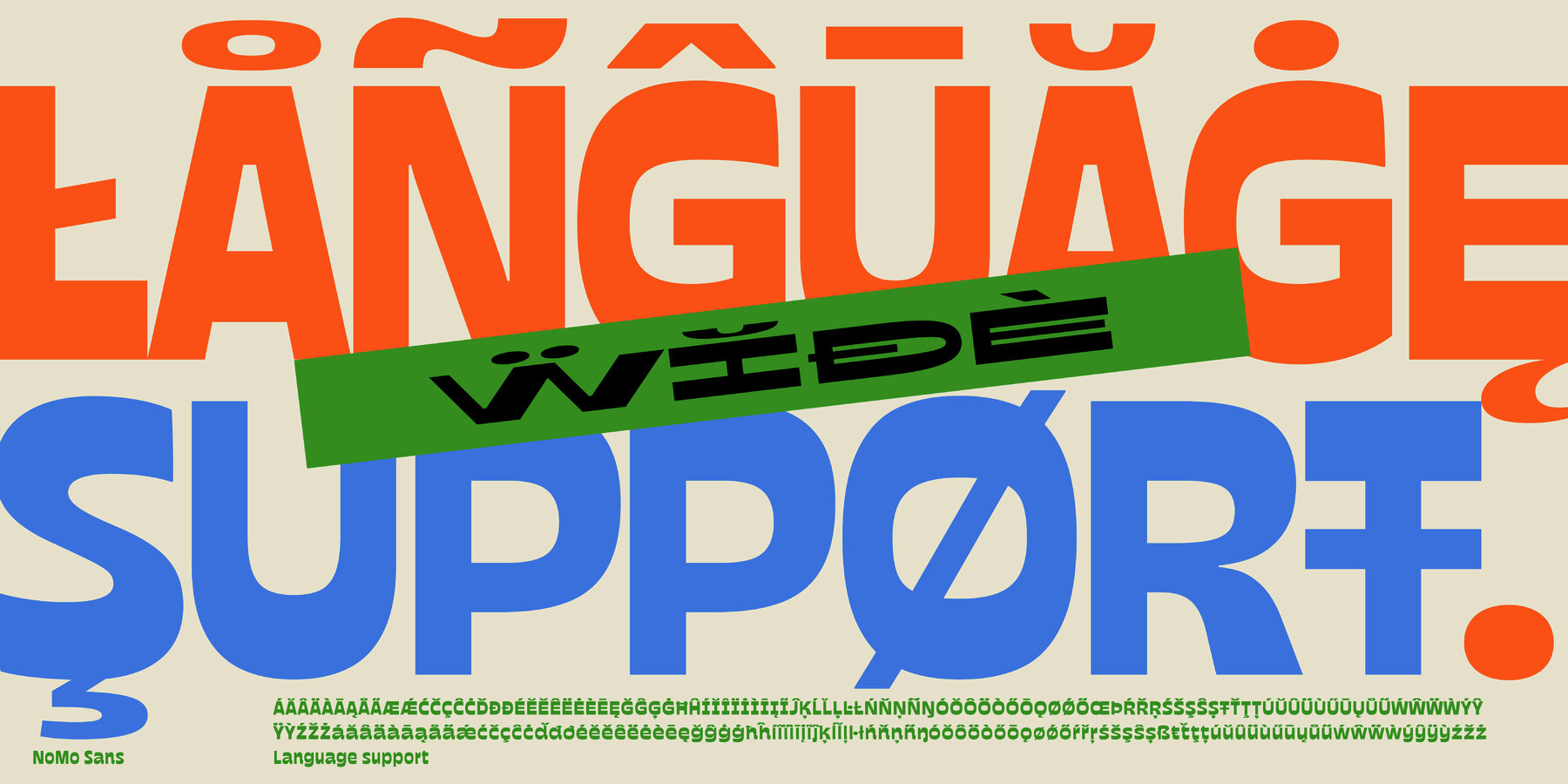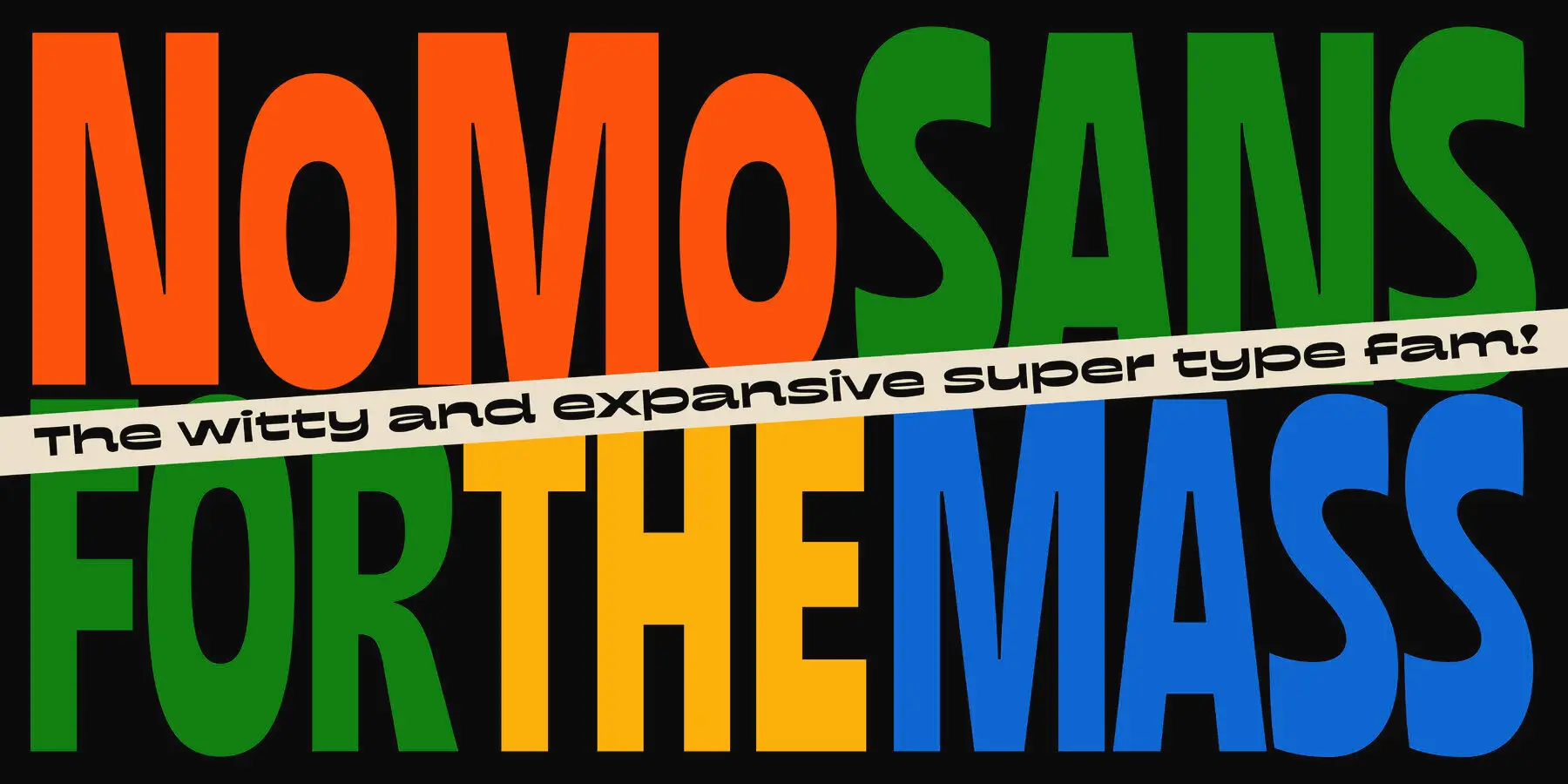
NoMo Sans Font
A new voice in the hood!! NoMo Sans, the witty and expansive super type family, hits the page like a jazz solo! It all started years ago, as an exploration for the irreverent, the mischievous, the improvised, the unexpected. Even back then, its playful personality was already present—full of attitude, and clearly breaking the mould. But it was stuck to a simple groove: a touch condensed here, a little expanded there. Just enough to set the mood. Some time later, we revisited the project and came the remix. That’s when we asked ourselves: What if this thing could swing harder? That’s how the idea came up: to add extreme masters and make it suuuuper wide—and even more suuuuper condensed. Because… why not? Of course, that meant reworking the whole system. Rethinking every note, every shape, and it turned out to be way more complex than expected—but absolutely worth it. NoMo Sans is a one-axis variable type family with a strong but enjoyable inverted contrast. A type system full of soft curves and smooth terminals, yet sprinkled with quirky, unexpected shapes that break out and improvise. Its groovy letterforms bring rhythm and musicality, turning every line of text into a wordmark, –that can be composed in almost any latin speech due to its wide language support–. From Ultra Expanded to Ultra Condensed (a 1:22 ratio), it offers serious range for deep layout solos or tight typographic ensembles. Whether you’re playing it cool or going full big band, NoMo Sans is ready to swing!